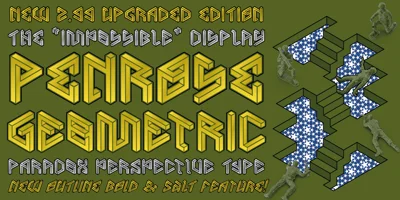
PENROSE Geometric Font
PENROSE Geometric Font is perfect for tech startup branding, modern architecture signage, contemporary art exhibitions, minimalist logo designs, scientific publications, engineering documentation, digital interface typography, and innovative product packaging. This precise typeface excels in technology-focused applications, mathematical presentations, and any project requiring clean geometric precision that communicates innovation and systematic thinking.
What makes PENROSE Geometric Font exciting is its mathematical precision and perfect geometric harmony that creates visual order while maintaining contemporary design appeal. The font features precisely calculated letterforms based on geometric principles that ensure perfect optical balance and readability, making it ideal for brands seeking to convey technical expertise and innovative thinking. Its systematic design approach guarantees consistent visual impact across all applications.
PENROSE Geometric Font family includes multiple weights and styles: Regular, Bold, Light, Medium, Italic variations, and condensed versions for space-efficient layouts. Each family member maintains the precise geometric character while offering comprehensive typography solutions for complex technical documentation, from detailed specifications to commanding headlines that establish technological authority.
Whether you're designing cutting-edge technology interfaces or creating scientific presentation materials, PENROSE Geometric Font provides the perfect typography solution for technical communication needs. This font transforms ordinary text into systematically organized visual information that communicates precision and innovation. Technology companies and design-focused organizations choose this typeface for its ability to convey technical excellence through mathematically perfect letterforms that inspire confidence in systematic approaches.